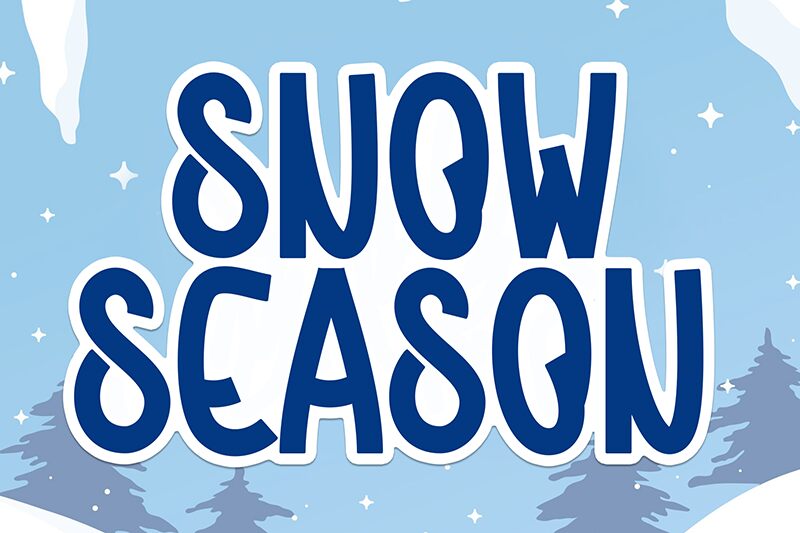
SNOW SEASON
\nSnow Season font by Andi Moz is a cartoon condensed type with a retro-inspired design and an irregular organic appearance. Its display style and playful curves allow it to stand out from the crowd, making the font unique. The bold appearance, whimsical feel, and organic approach offer extra creativity while designing.
This free display font allows for unique titling design in unusual journal ideas, magazines covers, children’s storybooks covers or body text paragraphs. It works on college projects posters as well as branding ideas for candies packaging, or storytelling website page headers.